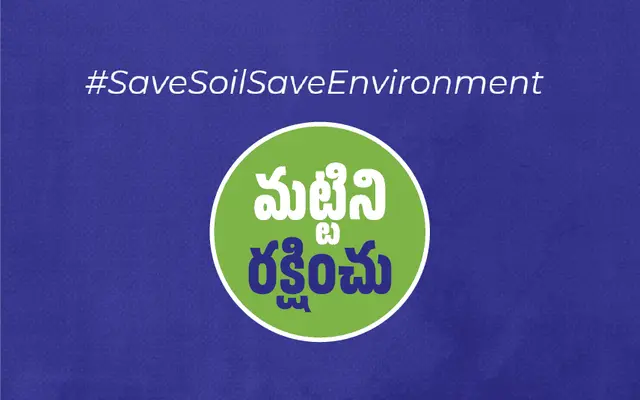
Anek Family
EK Type · Maithili Shingre, Yesha Goshar, Kailash Malviya, Aadarsh Rajan, Sulekha Rajkumar, Vaishnavi Murthy, Omkar Bhoir, Mrunmayee Ghaisas, Mahesh Sahu, Sarang Kulkarni
A collaborative variable font family spanning ten Indian scripts and Latin, designed by a collective of type designers at EK Type in Mumbai.
Each of the ten sub-families covers a distinct script — from Bangla and Devanagari to Gurmukhi and Odia — while sharing a visual grammar of sharp terminals and tapered joineries that holds across scripts. Two variable axes covering weight and width yield 40 interpolatable styles per script, stretching from compact capsular forms at the condensed extreme to broad, open letterforms at the wide end. The bold, condensed end of the design space is particularly suited to headlines and wordmarks, while the middle range functions quietly as text.
Anek is a contemporary sans-serif with geometric tendencies, sharp terminals, and tapered joineries, designed across ten Indian and Latin scripts with a broad variable font axis spanning weight and width.